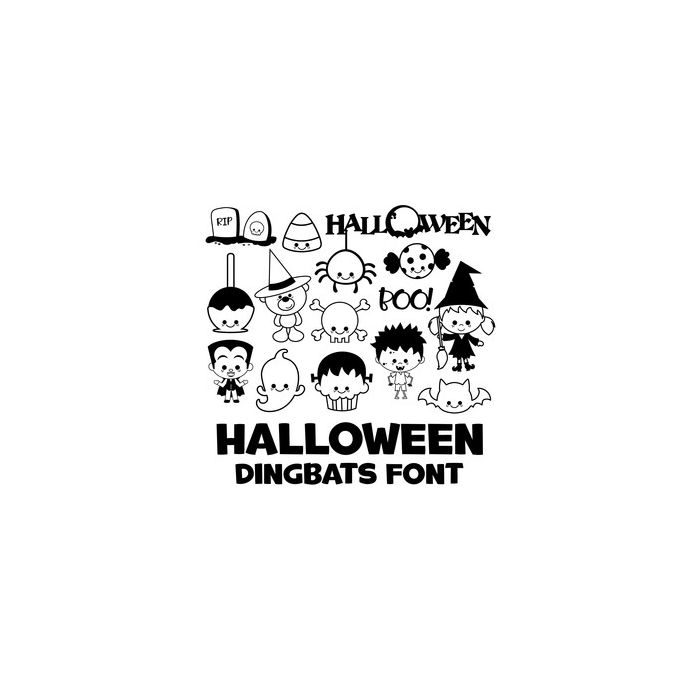
halloween dingbat font
This cute dingbat font includes 26 halloween icons that you can type + cut. Make adorable halloween themed projects with this fun font.